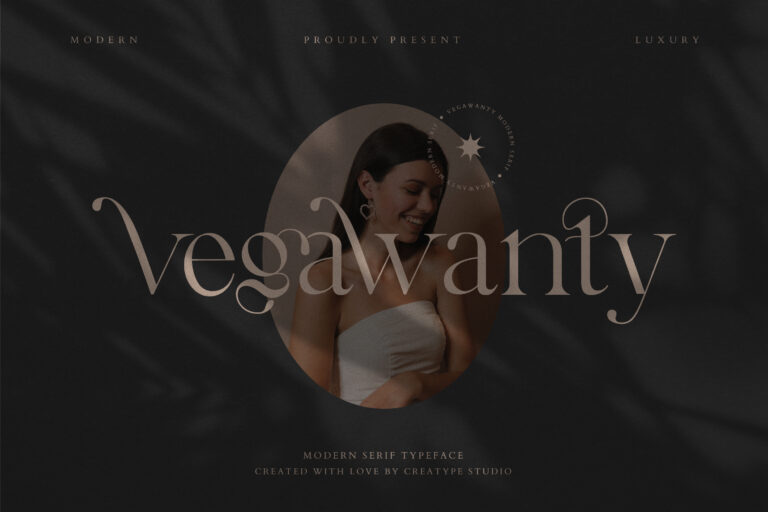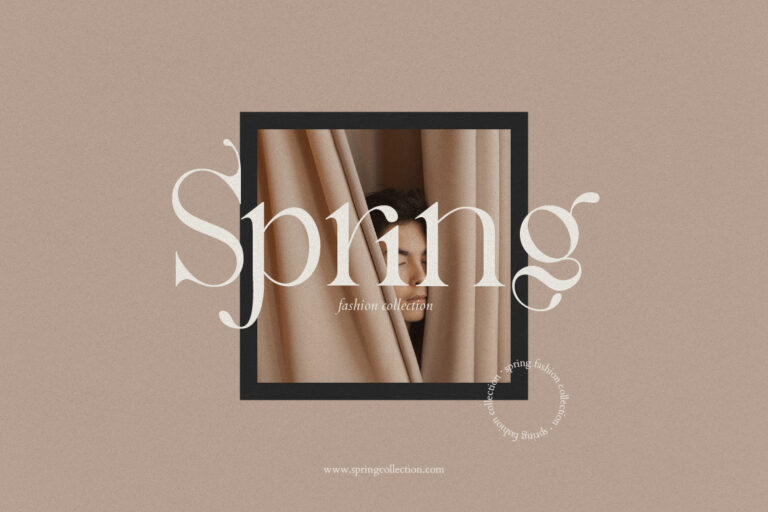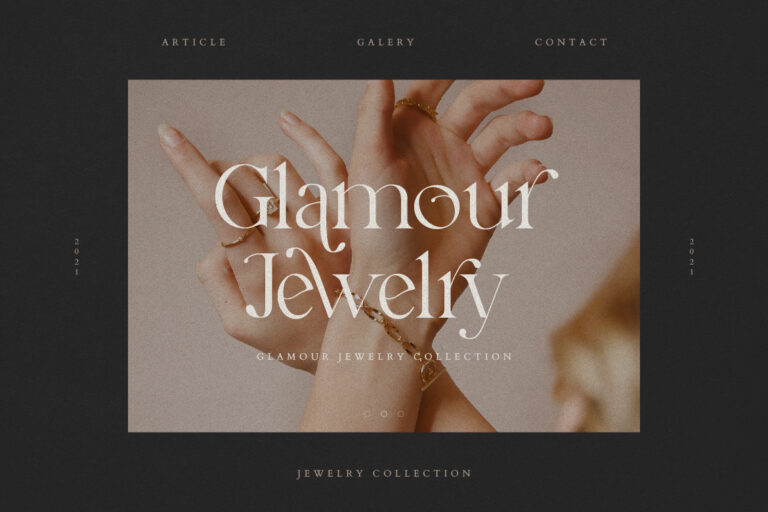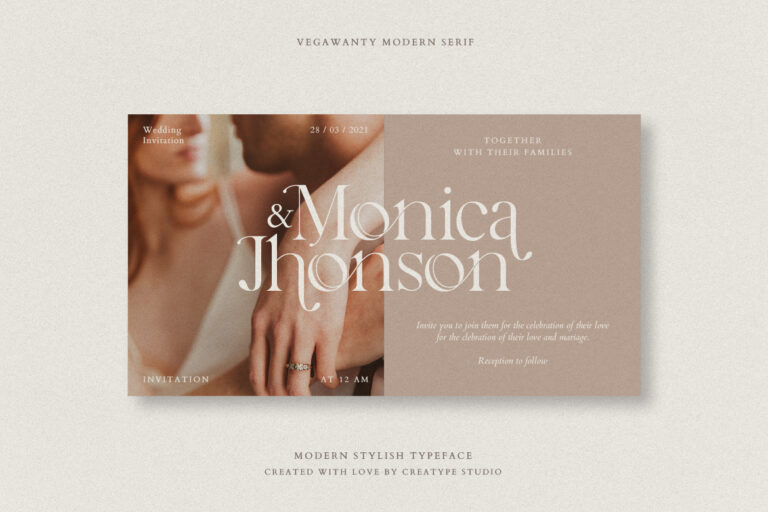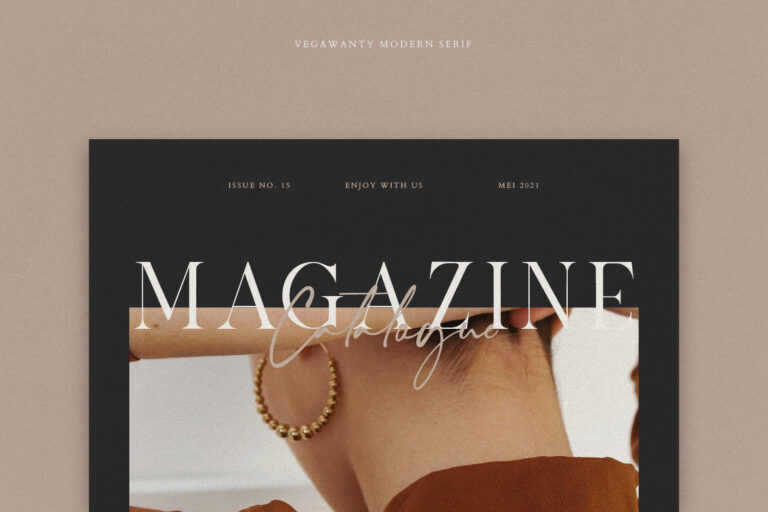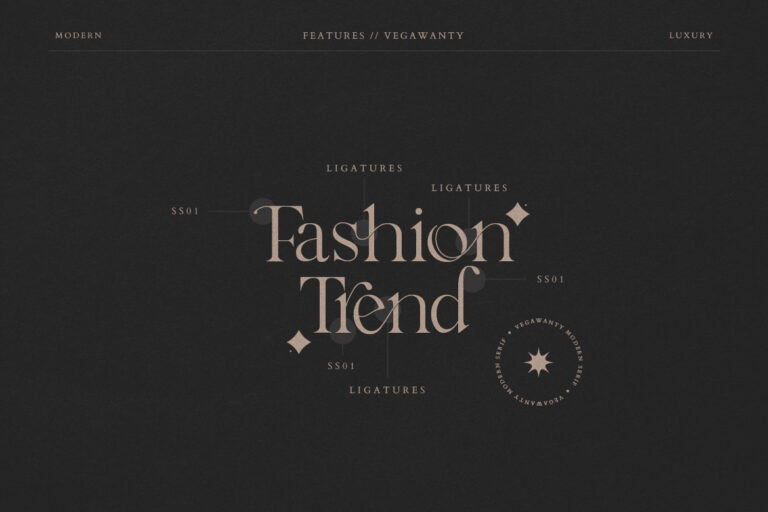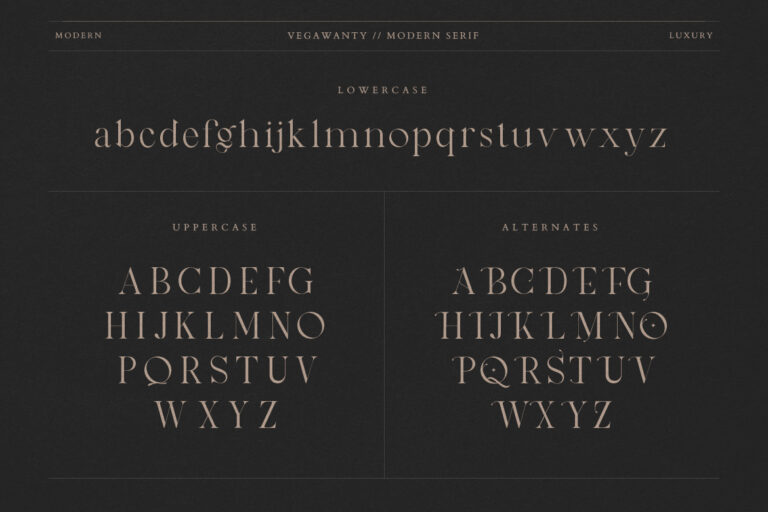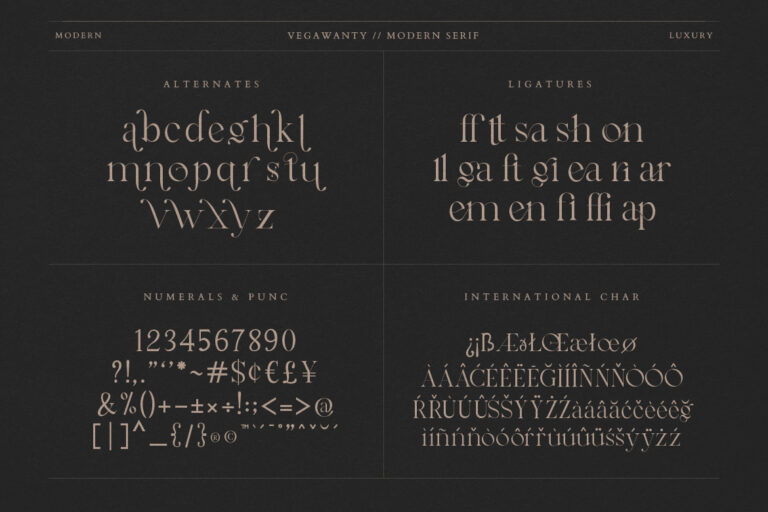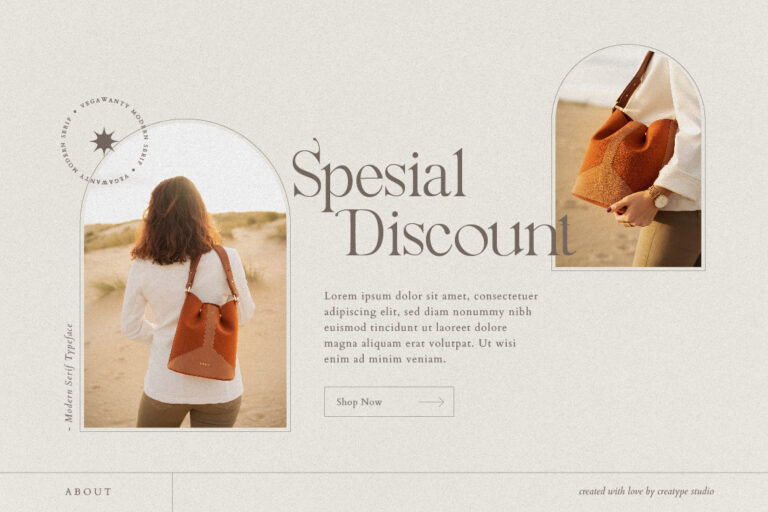
Vegawanty is a modern serif font that is truly unique and stylish, because its unique and stylish appearance makes this font look very elegant and classy. Vegawanty typeface will make your product design look really extraordinary.
Vegawanty Modern Serif is perfect for branding projects, logo, wedding designs, social media posts, advertisements, product packaging, product designs, label, photography, watermark, invitation, stationery and any projects that need handwriting taste.
Vegawanty Modern Serif